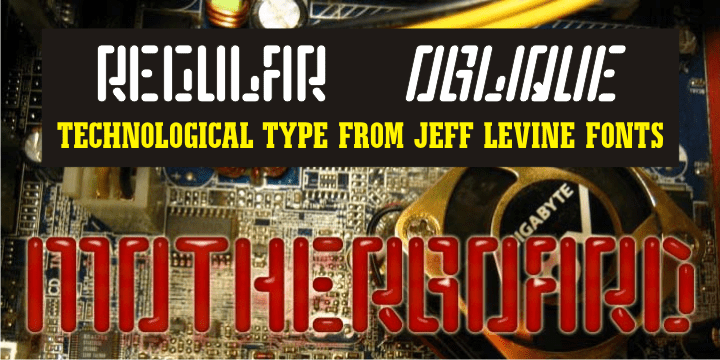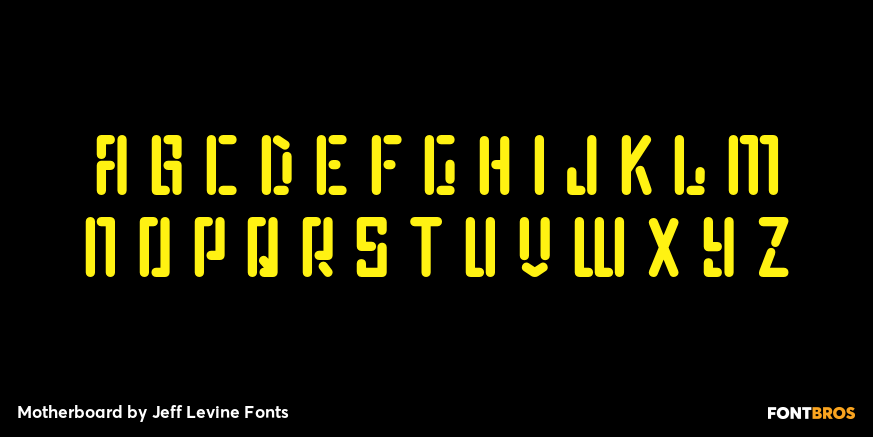
Motherboard
Motherboard JNL is a retro throwback to the technology boom of the 1980s and simulates an LED readout display panel. Available in regular and oblique styles.